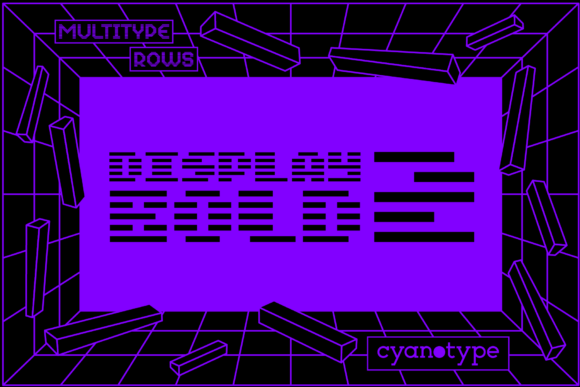
Embark on a typographic adventure with MultiType Rows Display Bold 2, the font that redefines boldness and creativity. Its distinctive pixelated structure and distorted charm add an edgy and contemporary vibe to your designs. Step into a world where letters become art, transforming your words into captivating visual masterpieces.
Dare to be different and embrace the unconventional beauty of MultiType Rows Display Bold 2. Let your imagination run wild as you craft eye-catching letter logos that stand out from the crowd. This font is a game-changer for designers seeking to make a lasting impact. Its unique shapes and dynamic rhythm create a visual symphony that dances off the page.
Unlock the full potential of MultiType Rows Display Bold 2 with its PUA encoding, granting you effortless access to a treasure trove of glyphs and swashes. Unleash your creativity and let your designs soar to new heights. From branding projects to social media graphics, this font is your ultimate companion, ready to turn your ideas into reality.
Join the ranks of savvy designers who recognize the power of MultiType Rows Display Bold 2. Experience the thrill of creating designs that ignite emotions and leave an indelible mark on your audience. Embrace the beauty of distortion and let your imagination flourish. The possibilities are endless—all it takes is a click to unlock the door to typographic greatness.